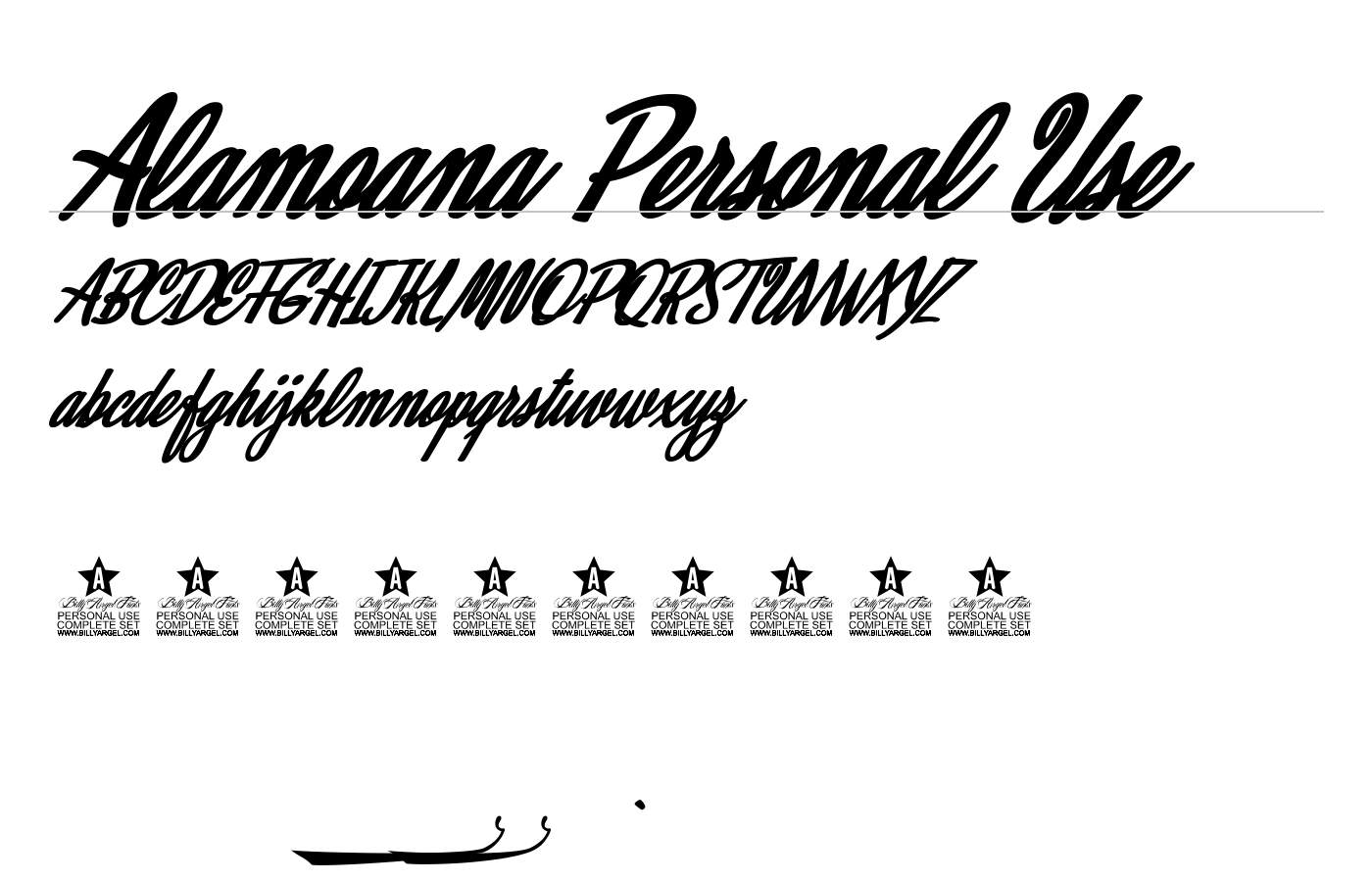
Alamoana Personal Use is a stylish script font characterized by its smooth, flowing strokes and moderate contrast, creating an elegant yet approachable handwritten feel. Its slightly condensed letterforms and connected letters make it perfect for adding a personal touch to invitations, branding, and headlines where a refined yet casual vibe is desired. This font works beautifully in designs that seek to balance sophistication with warmth and personality.
Alamoana Personal Use Font
About Alamoana Personal Use Font
| Font family | Alamoana Personal Use Font |